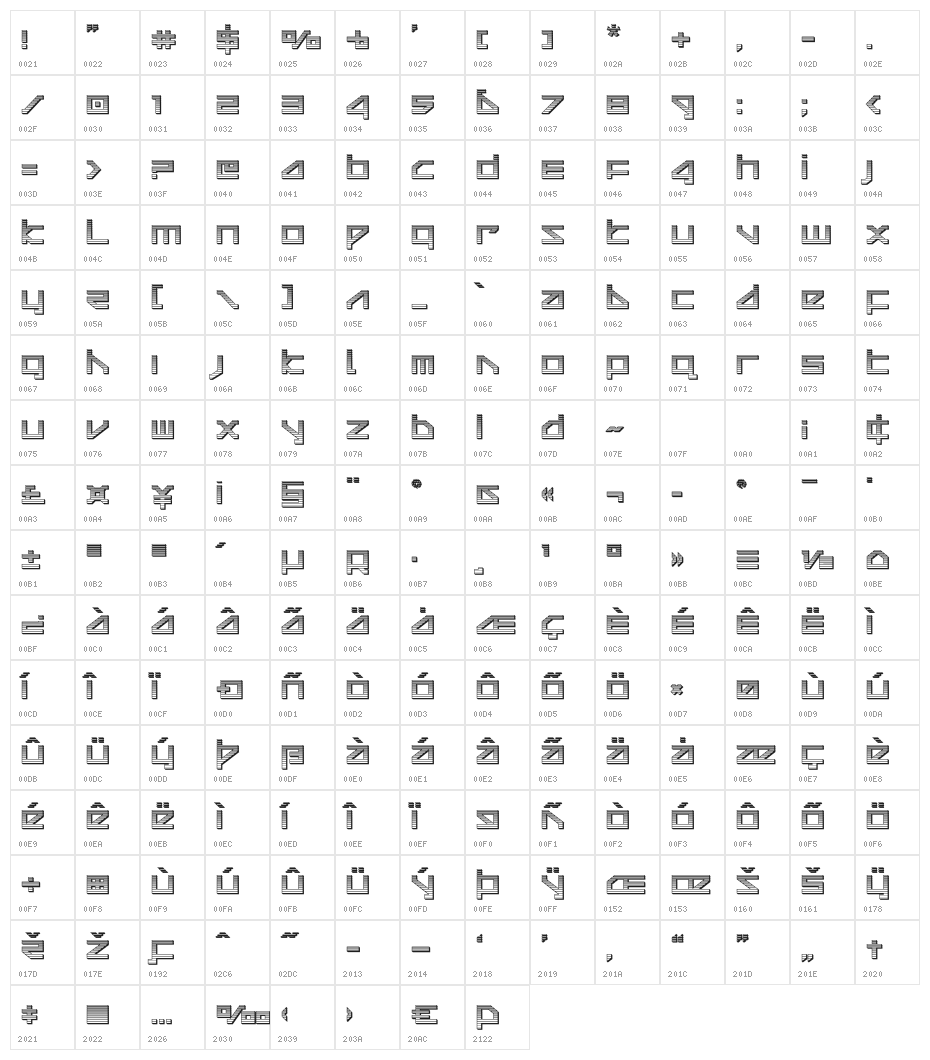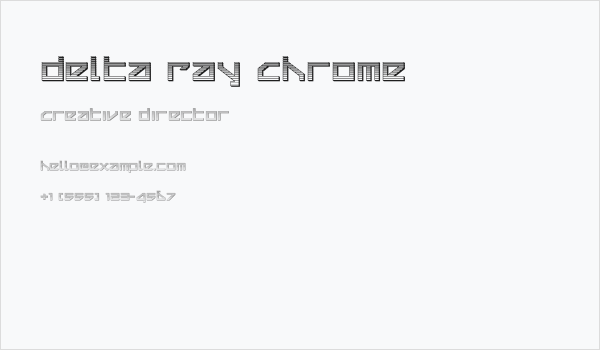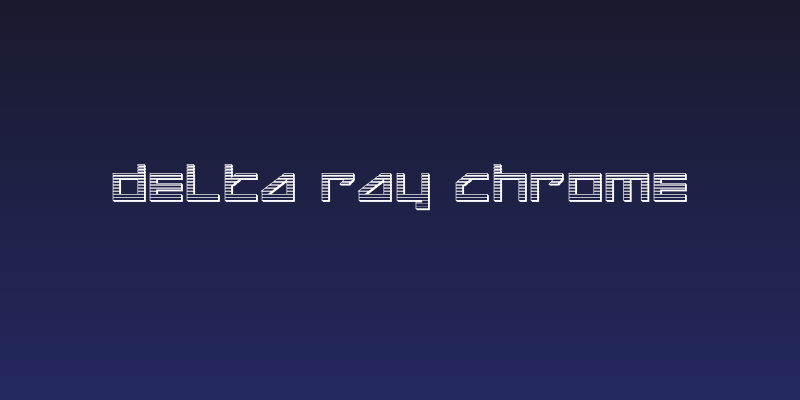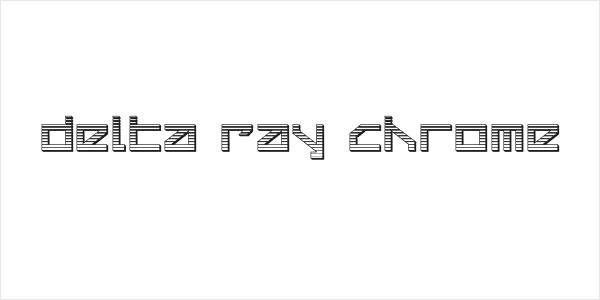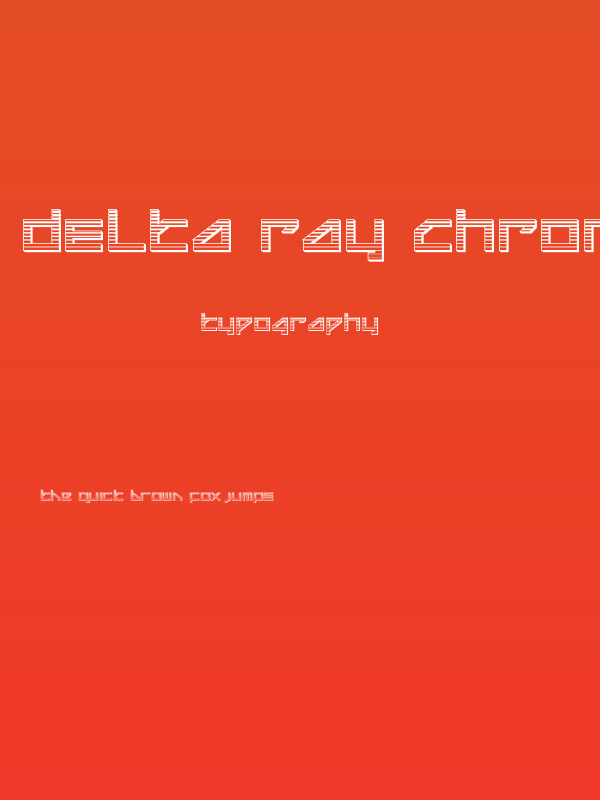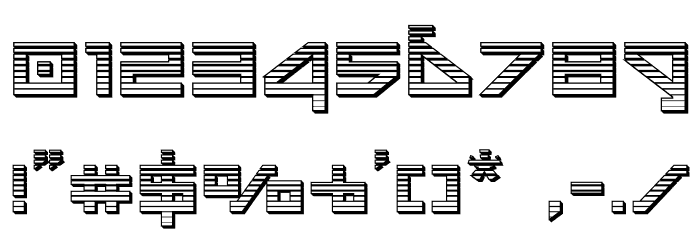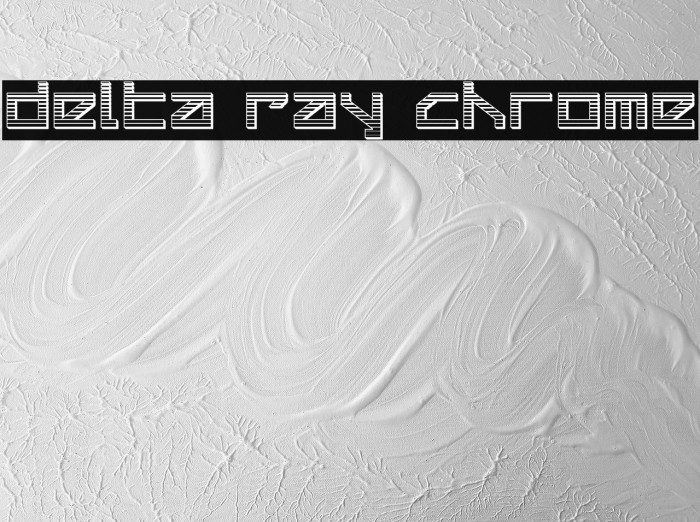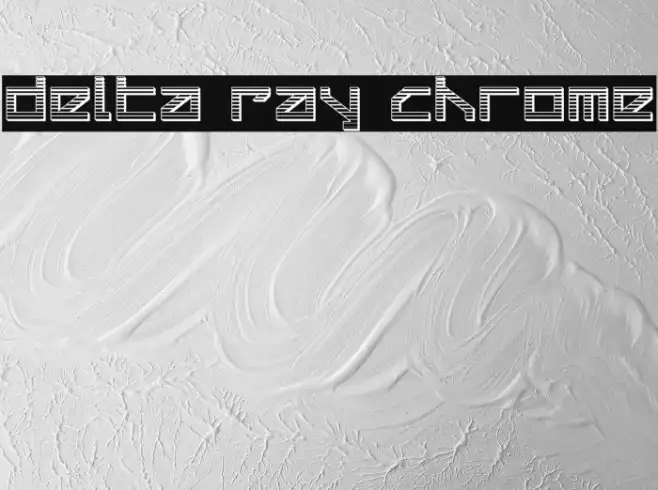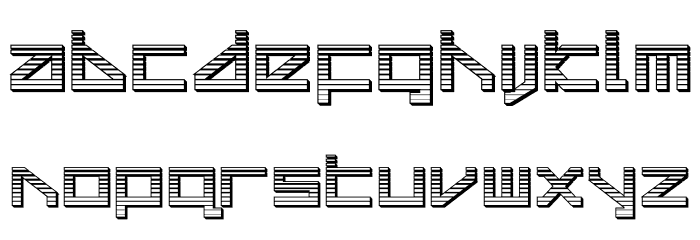
Delta Ray Chrome Font
Delta Ray Chrome Description
This font features a futuristic and geometric design, characterized by its bold, three-dimensional appearance. Each character is constructed with parallel lines that create a striped effect, giving it a sense of depth and movement. The angular and structured form of the letters suggests a modern, tech-inspired aesthetic. The uppercase and lowercase letters maintain a consistent style, with sharp edges and a uniform line thickness. Numbers and special characters are designed to match the overall theme, ensuring visual coherence across all elements.
| Proposed Projects | Ideal for technology branding, sci-fi themed projects, video game titles, and modern posters. |